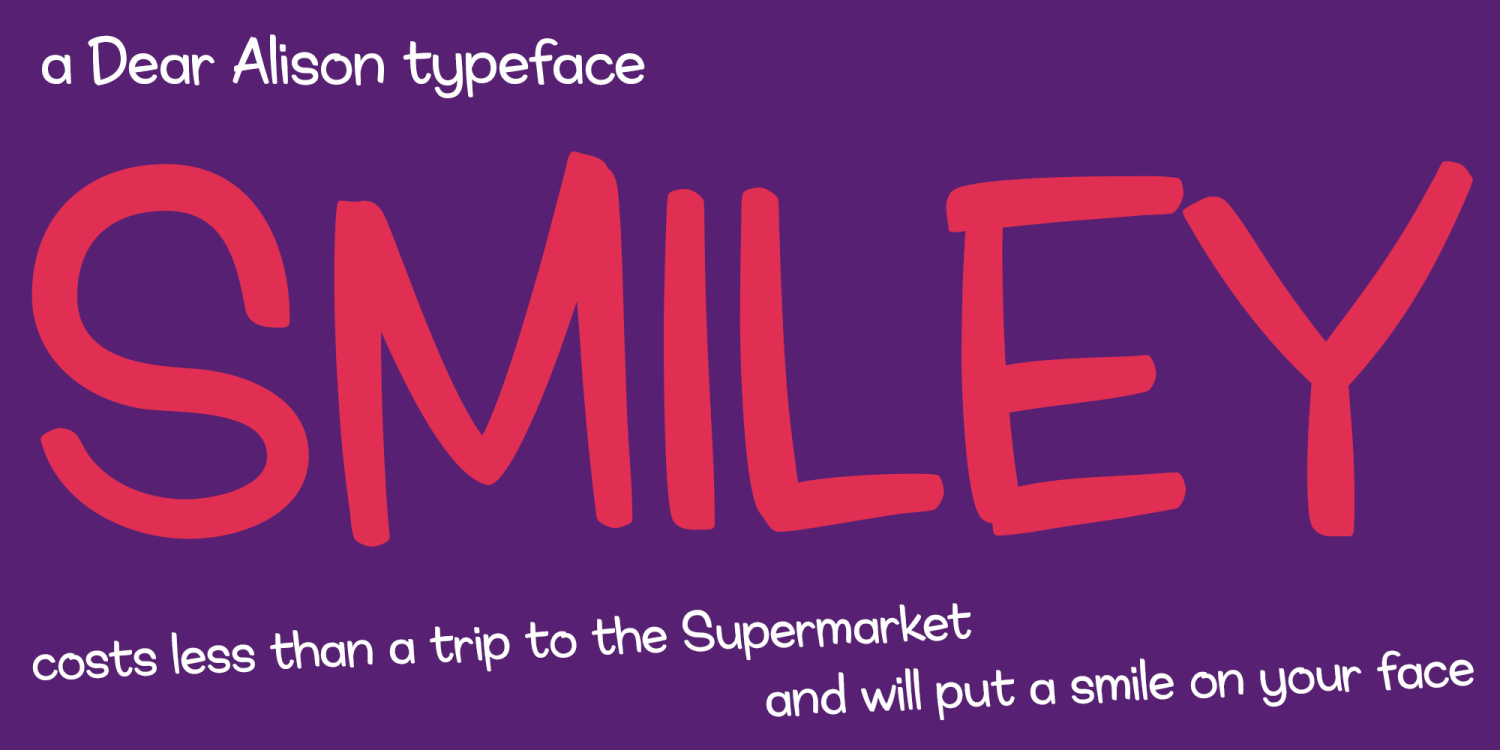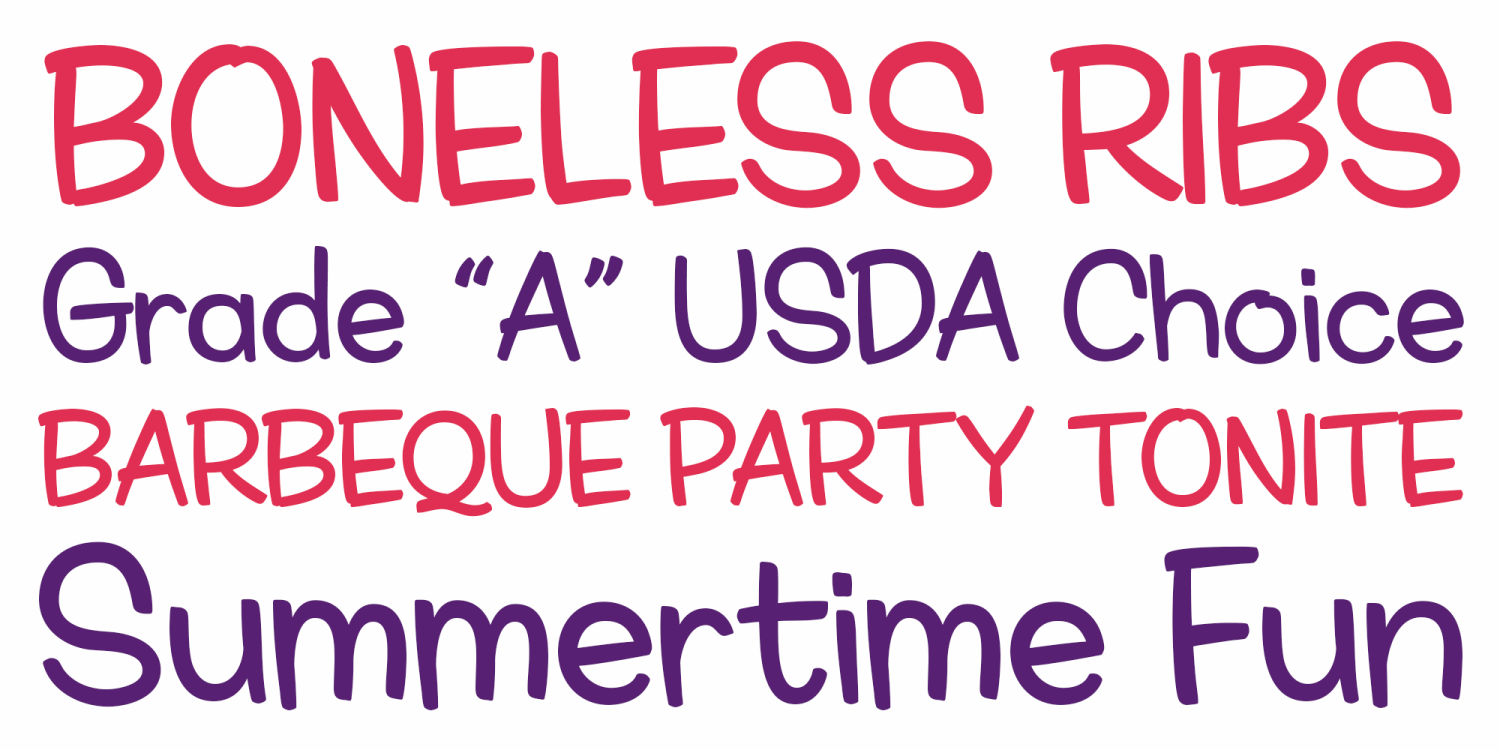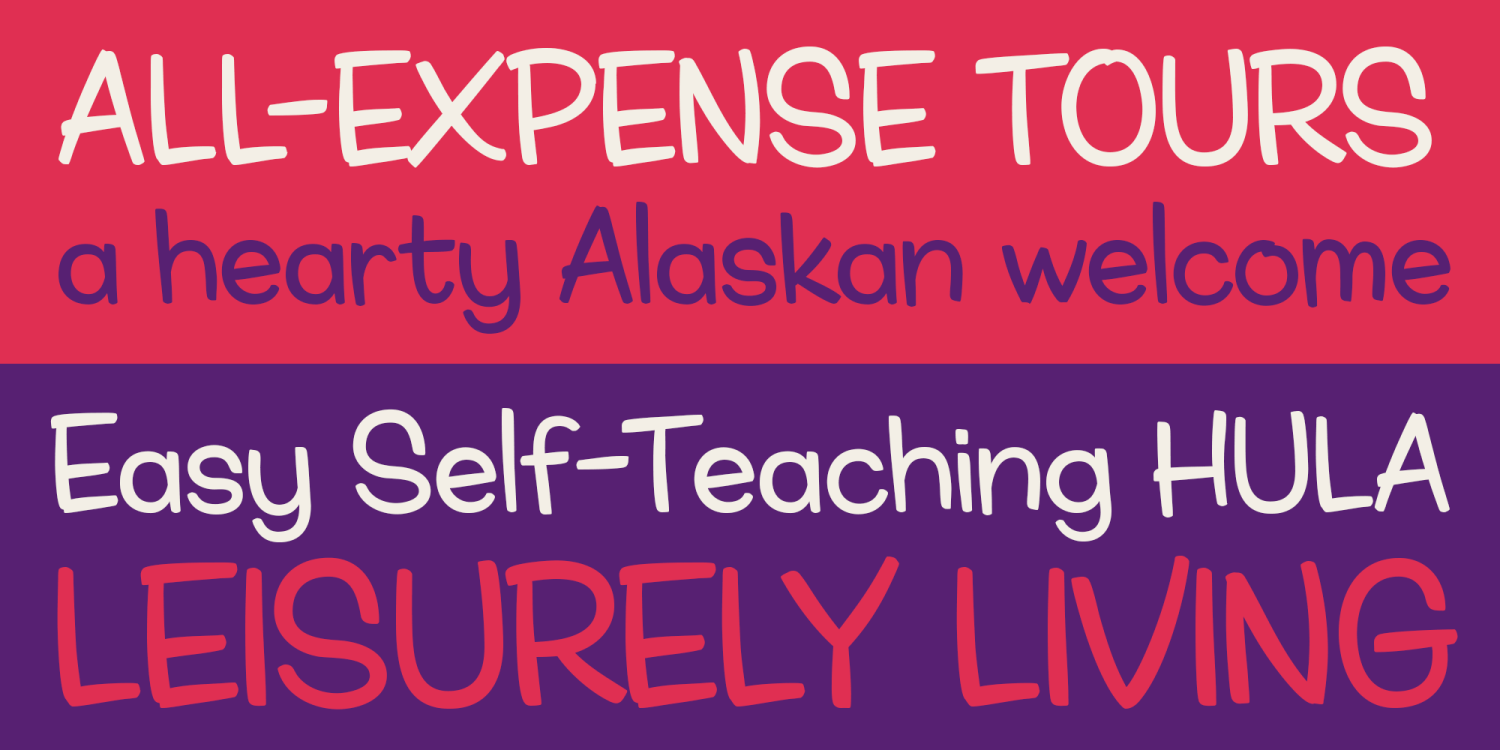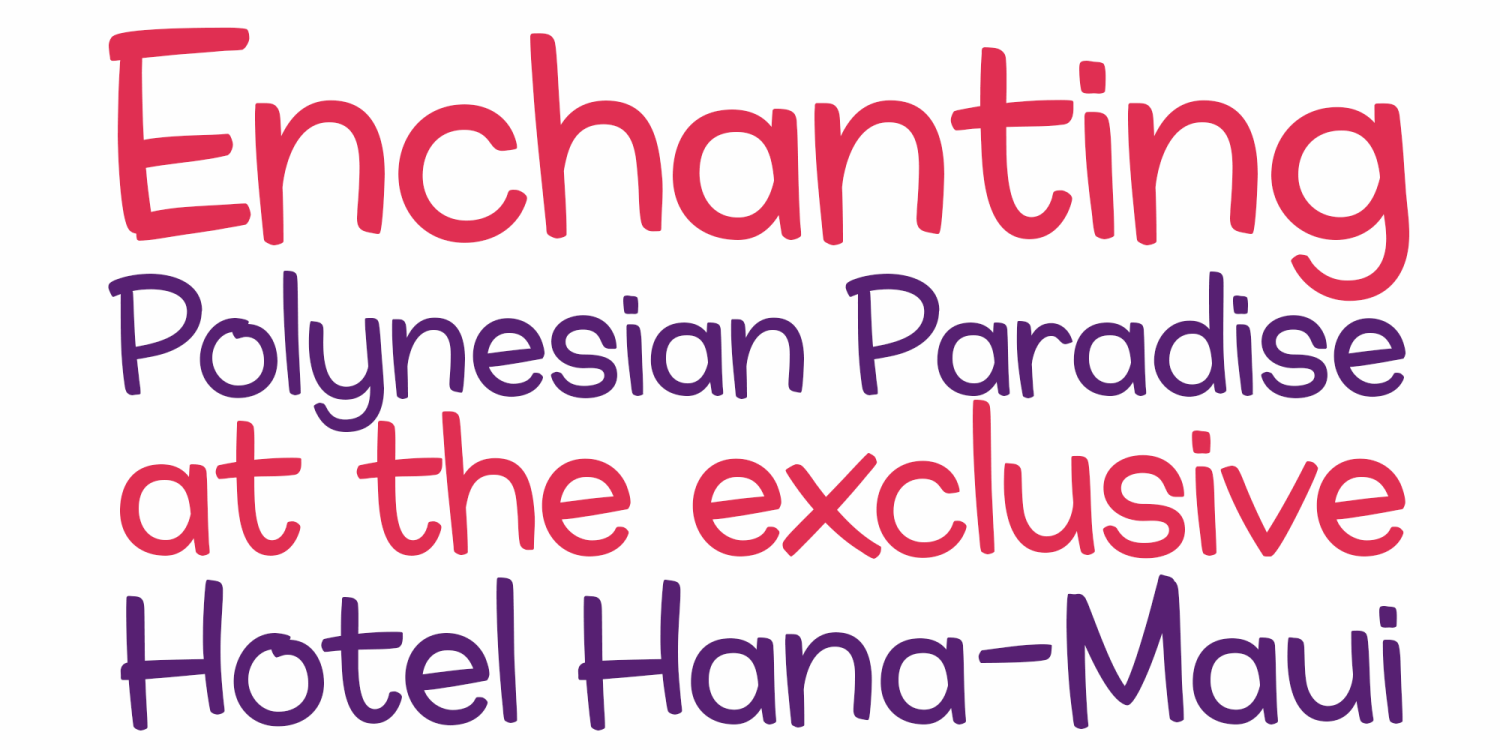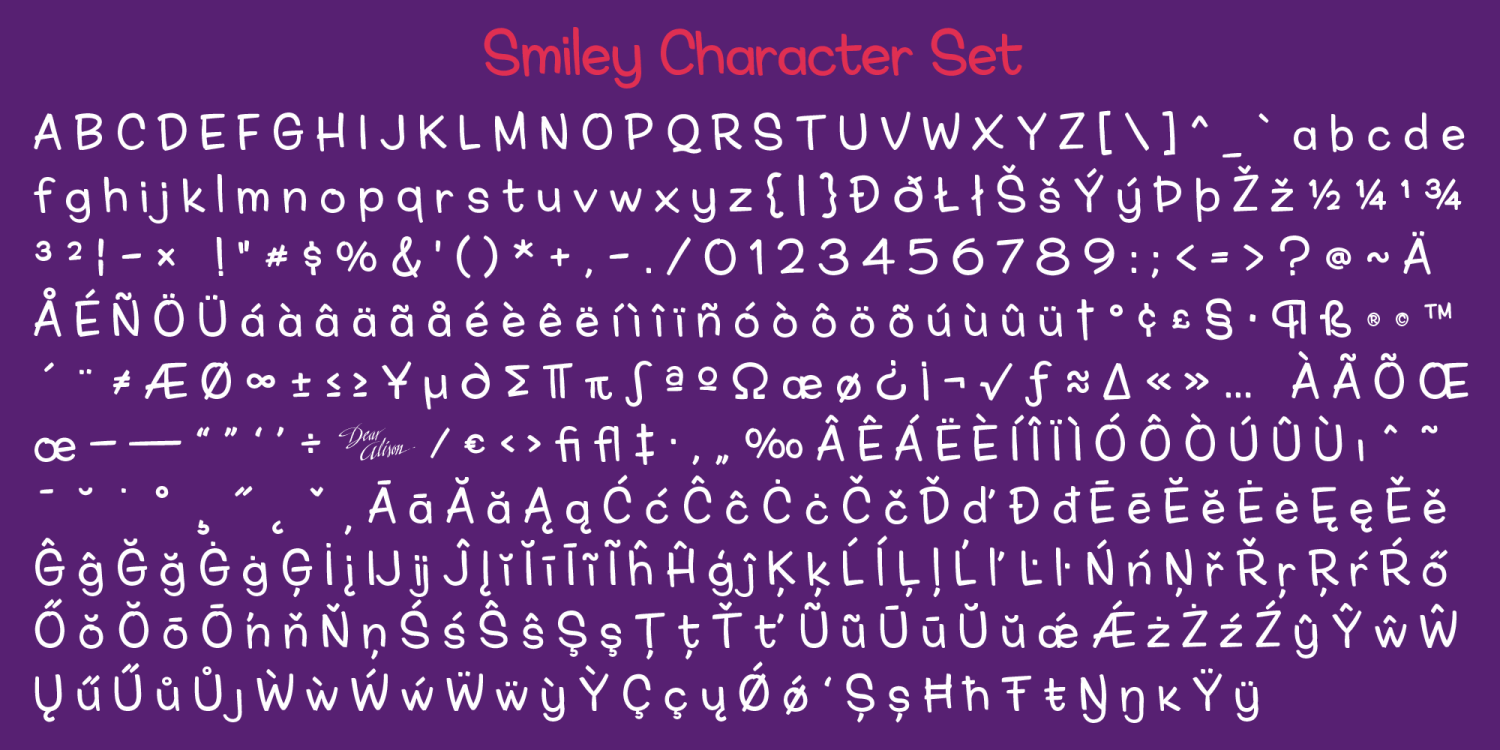
Smiley
Font Family by Dear Alison
Ever think that supermarkets are becoming less personal and more clinical and cold? What will cost you less than a trip to the supermarket and put a smile on your face?
Smiley was inspired by the hand-brush lettered signage at country grocery stores. There's something about the feeling you get when you visit a small town and stroll on over to the corner market. Everyone is pleasant, courteous, and they all have a smile on their face.